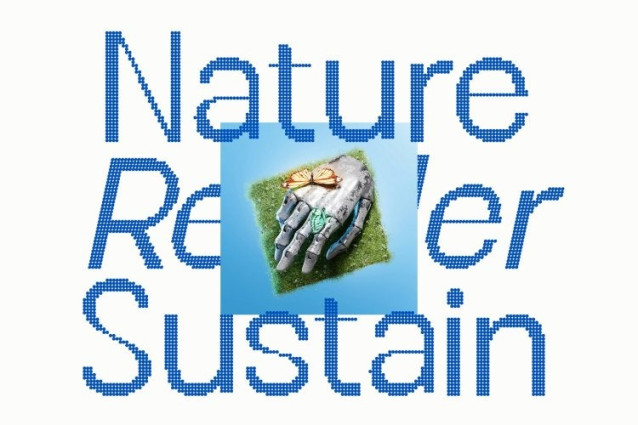
CS Morsa Disco Font
CS Morsa Disco Font This is a modern sans serif font built on a refined hybrid design that blends clean structure with expressive disco-inspired style. Its balanced construction delivers a professional appearance while introducing a subtle sense of motion and excitement like modern minimalism lit up by flashing lights.
Clean Letterforms with Rhythmic Flexibility
The letterforms are crafted with crisp lines, thoughtful proportions, and smooth spacing to ensure strong readability across layouts. Stylish details add a lively visual rhythm, keeping the font from feeling cold or mechanical. This makes font polished yet playful, structured yet energetic.
Professional Confidence with a Festive Edge
While rooted in contemporary professionalism, this font carries a confident, upbeat personality. Its modern aesthetic communicates trust and clarity, while the disco influence injects charm, vibrancy, and visual momentum. The result is typography that feels credible by day and electric by night.
Perfect for Branding, Editorials, and High-Energy Creative Projects
Designed for versatile modern use, this font shines in branding, editorials, posters, campaigns, and creative visuals. Its hybrid sans serif style adapts seamlessly to headlines, supporting text, and expressive layouts making it ideal for modern brands that want sophistication with a touch of party-ready flair.